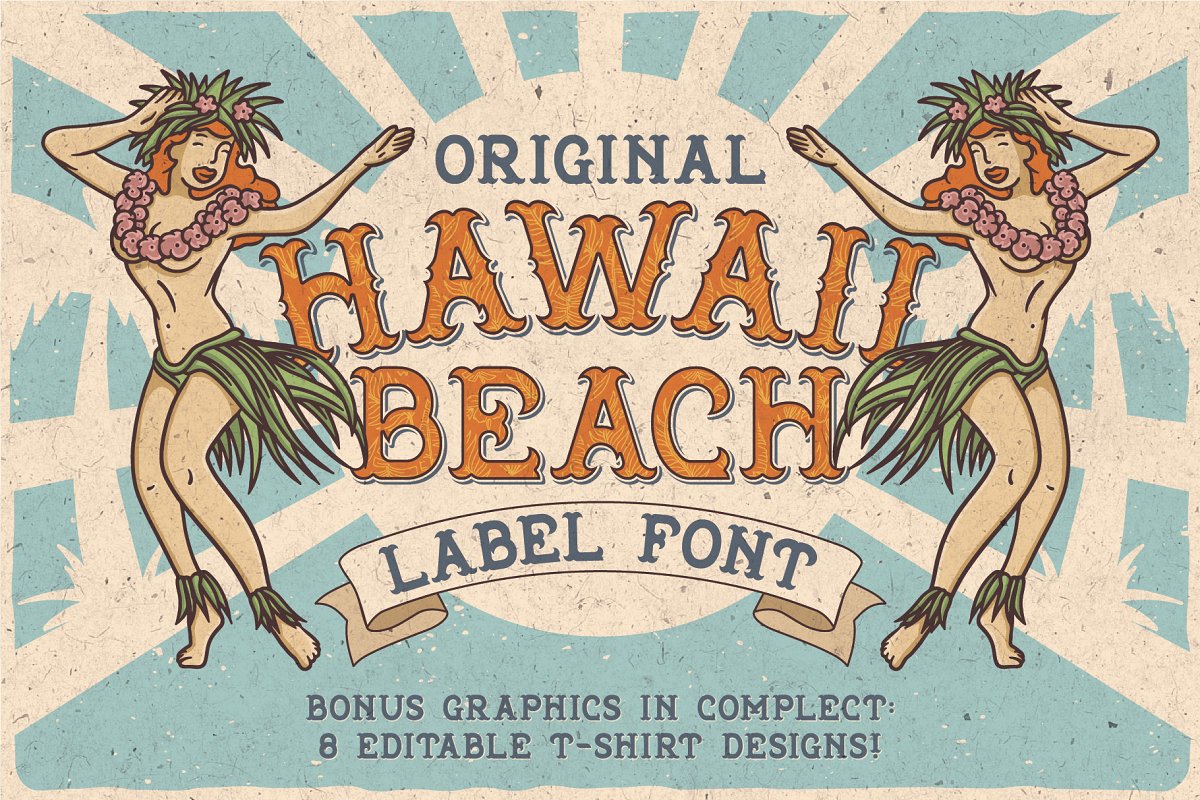
Introducing a vintage look label font named “Hawaii Beach”. All available characters you can see at the screenshot.
This font has 6 styles (including layered shadow effect style). This font will good viewed on any retro design like poster, t-shirt, label, logo, etc.
Features:
- A lot of additional characters and multilingual support
For using the shadow effect layer: